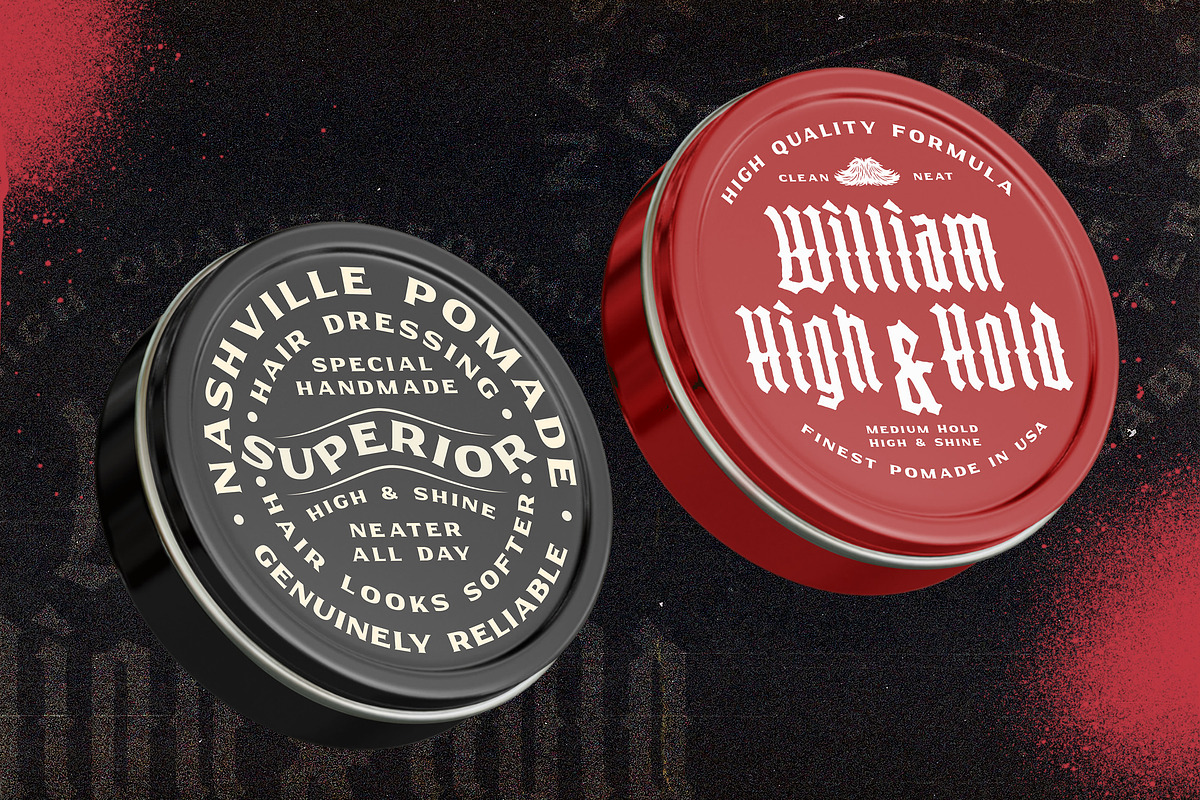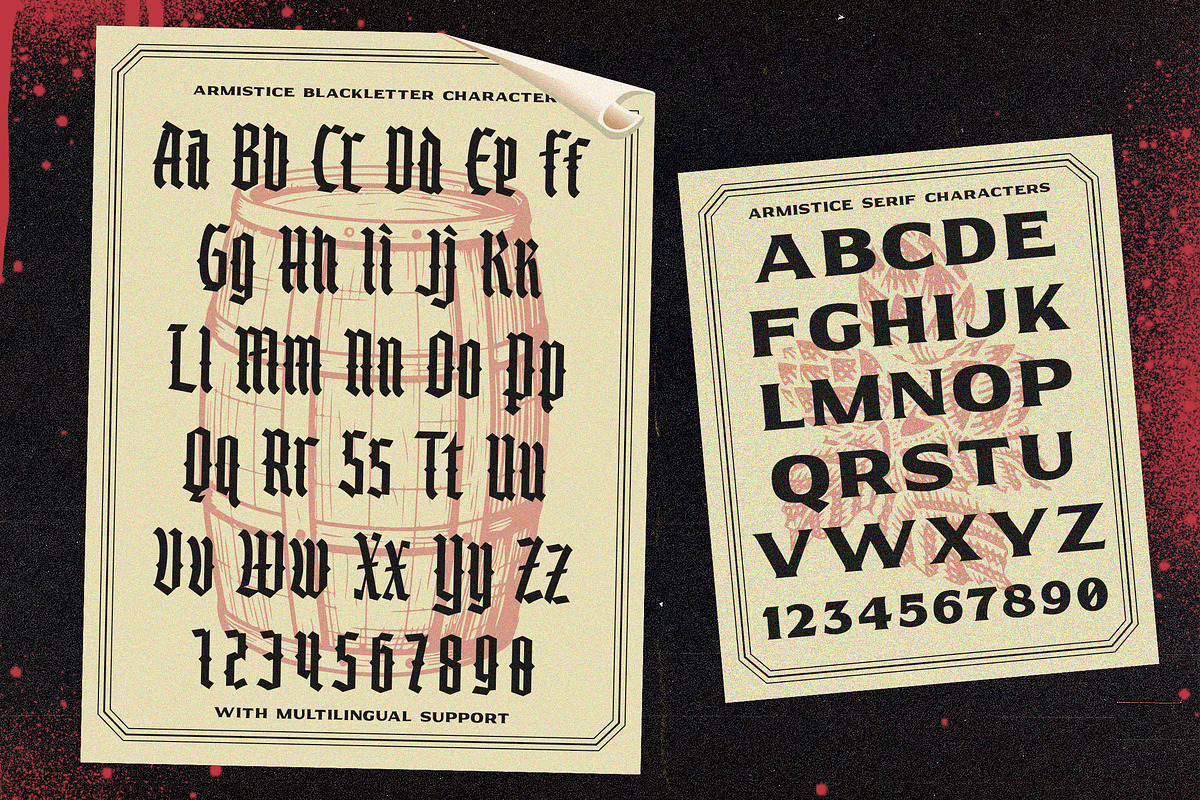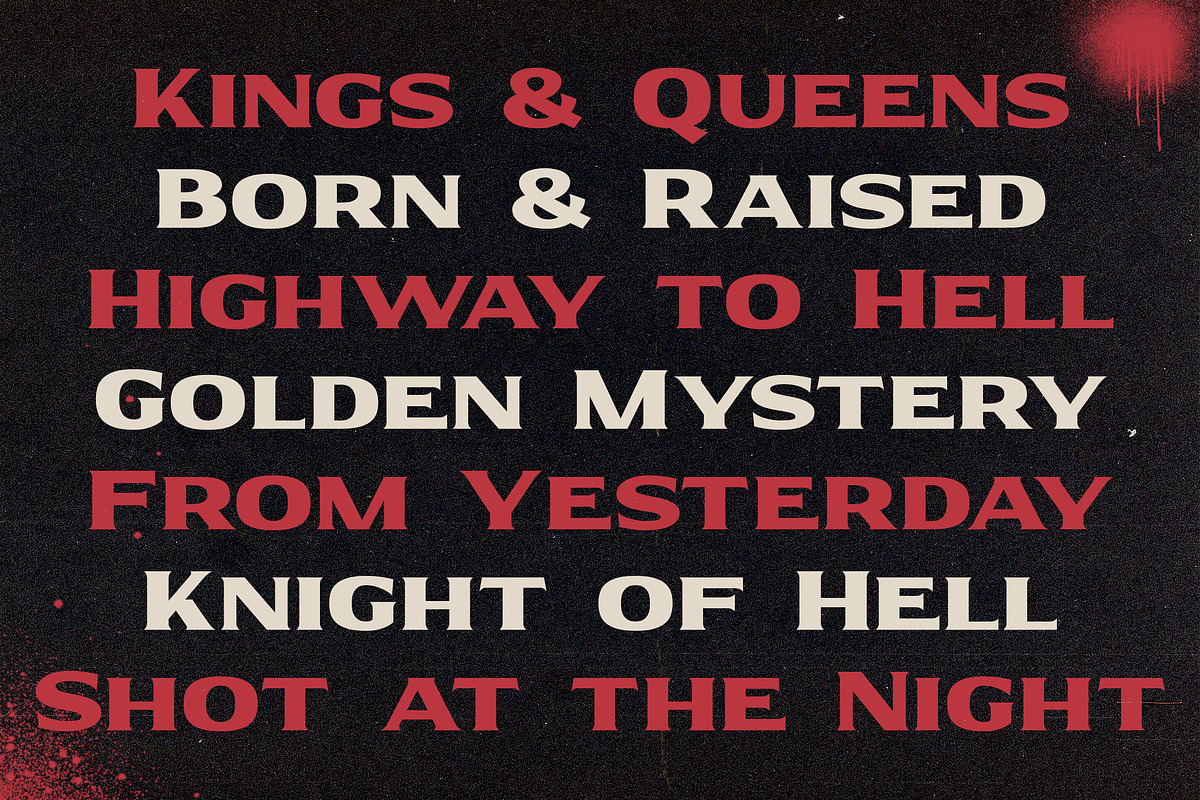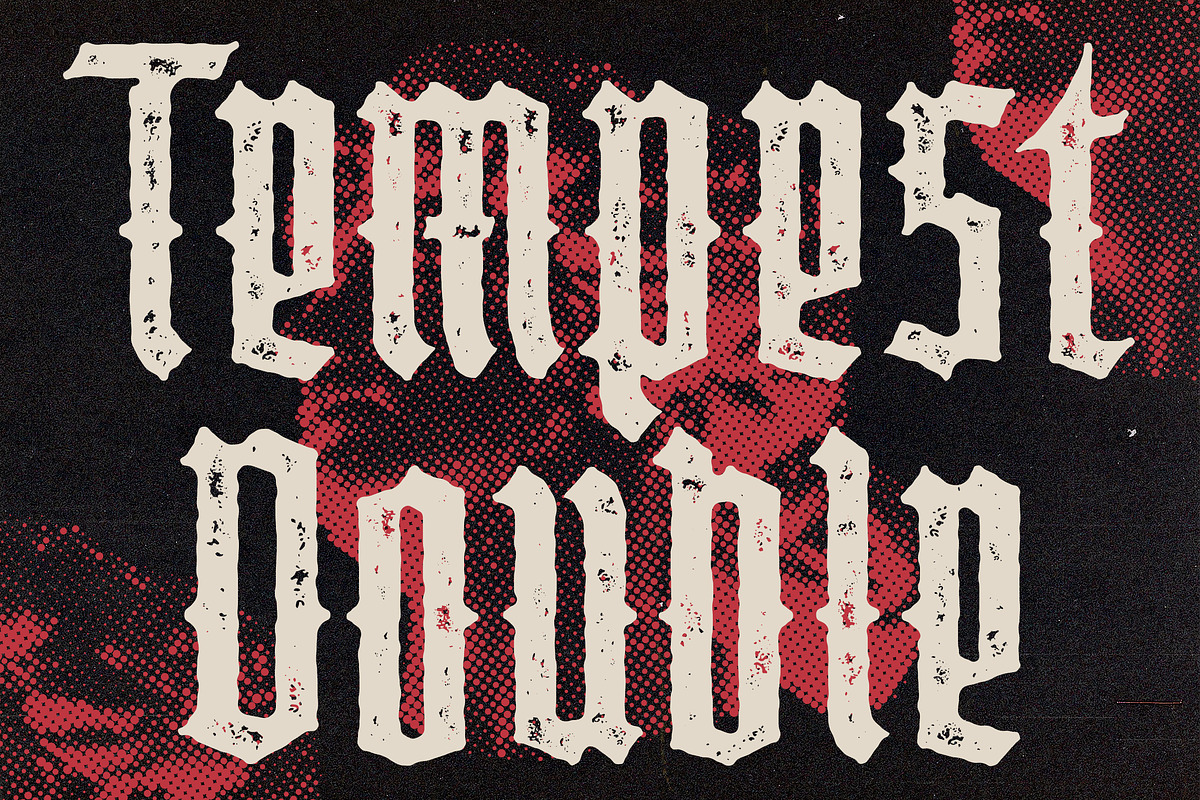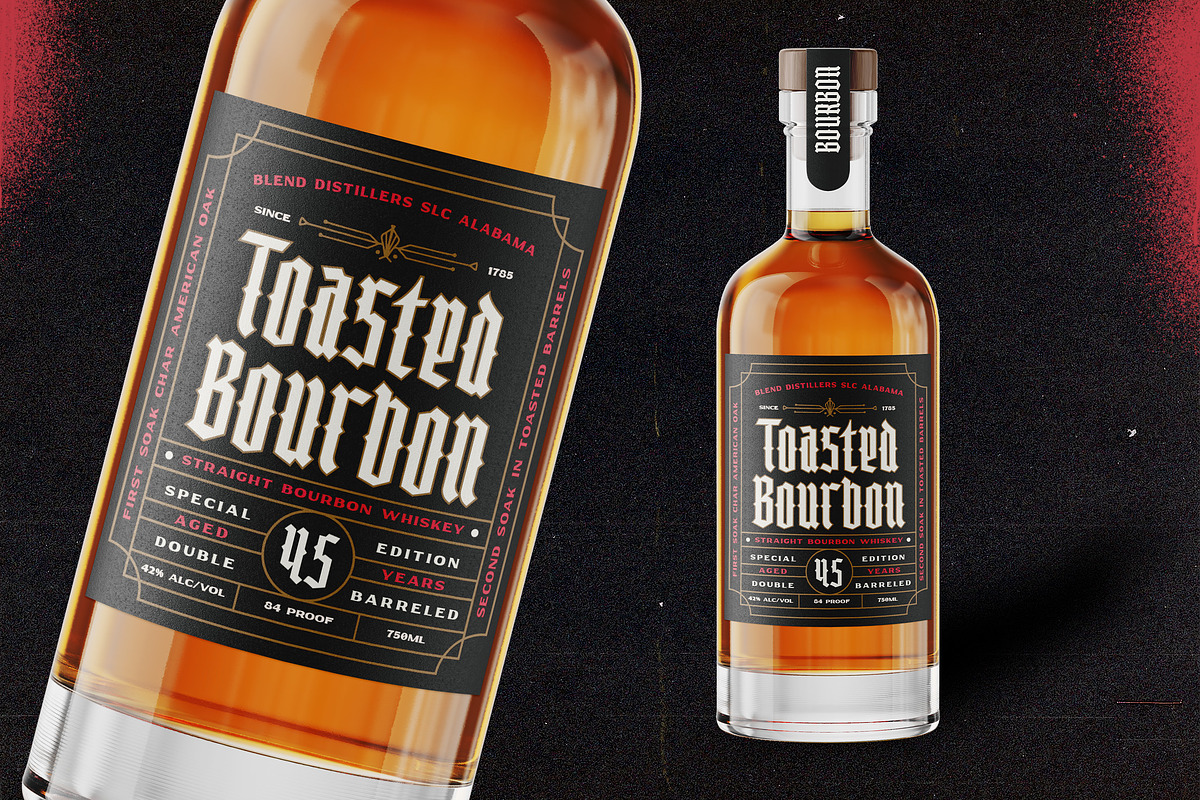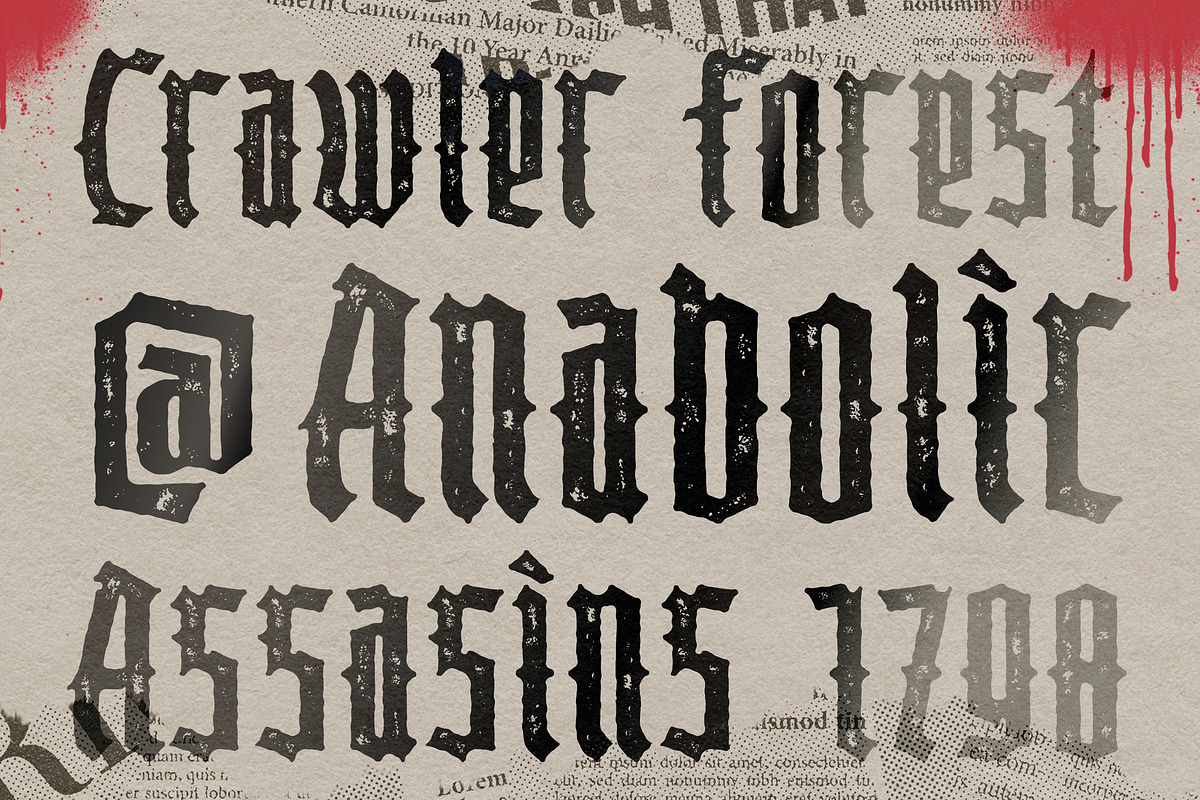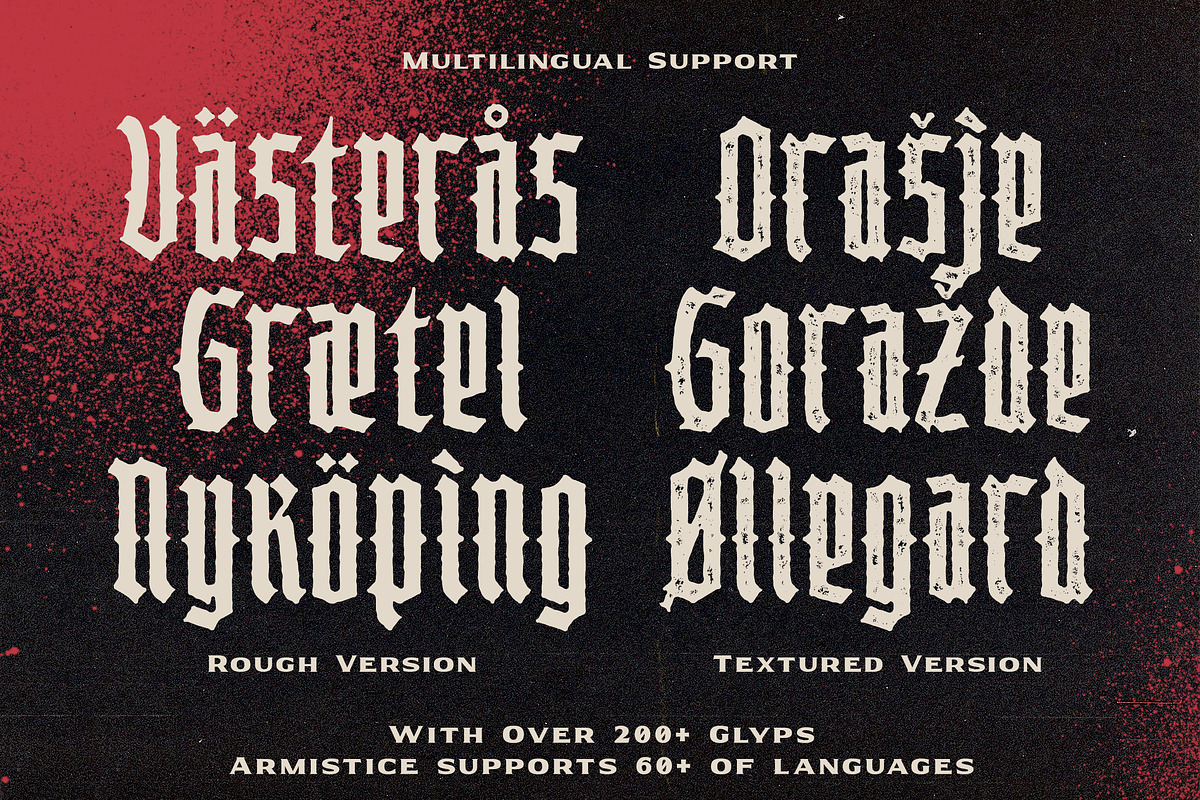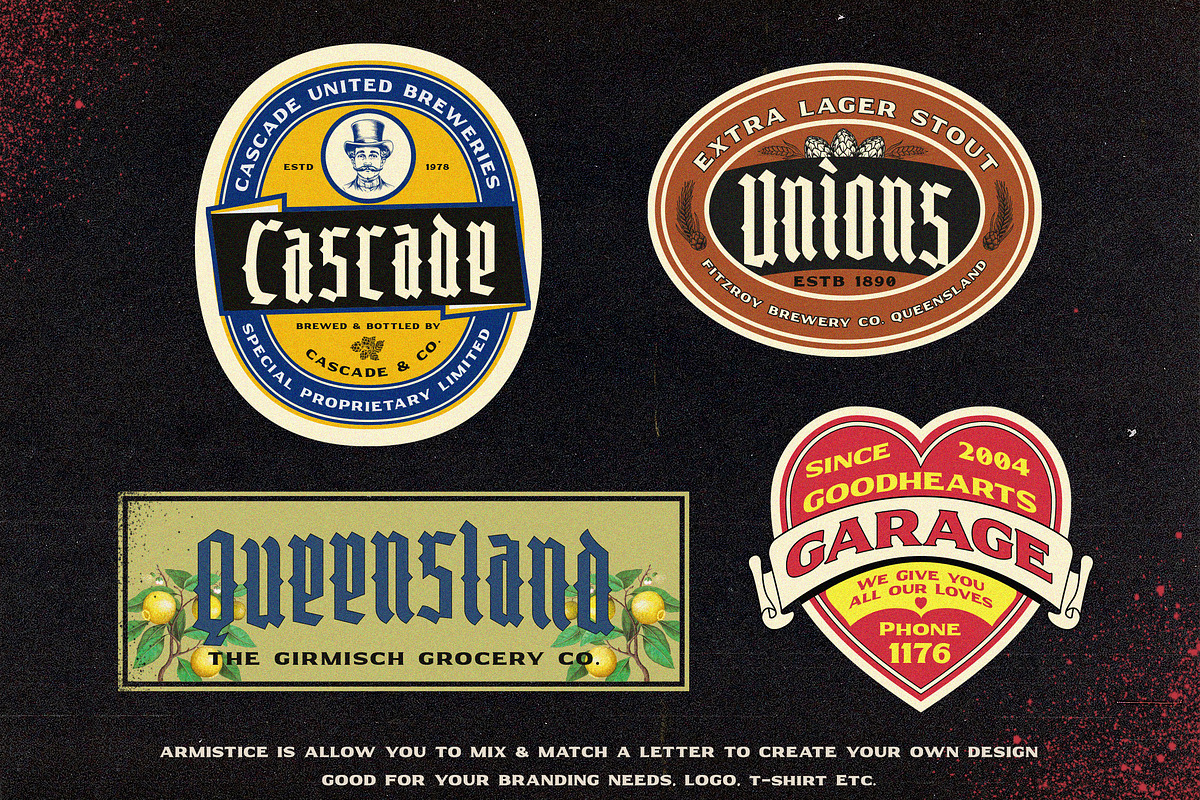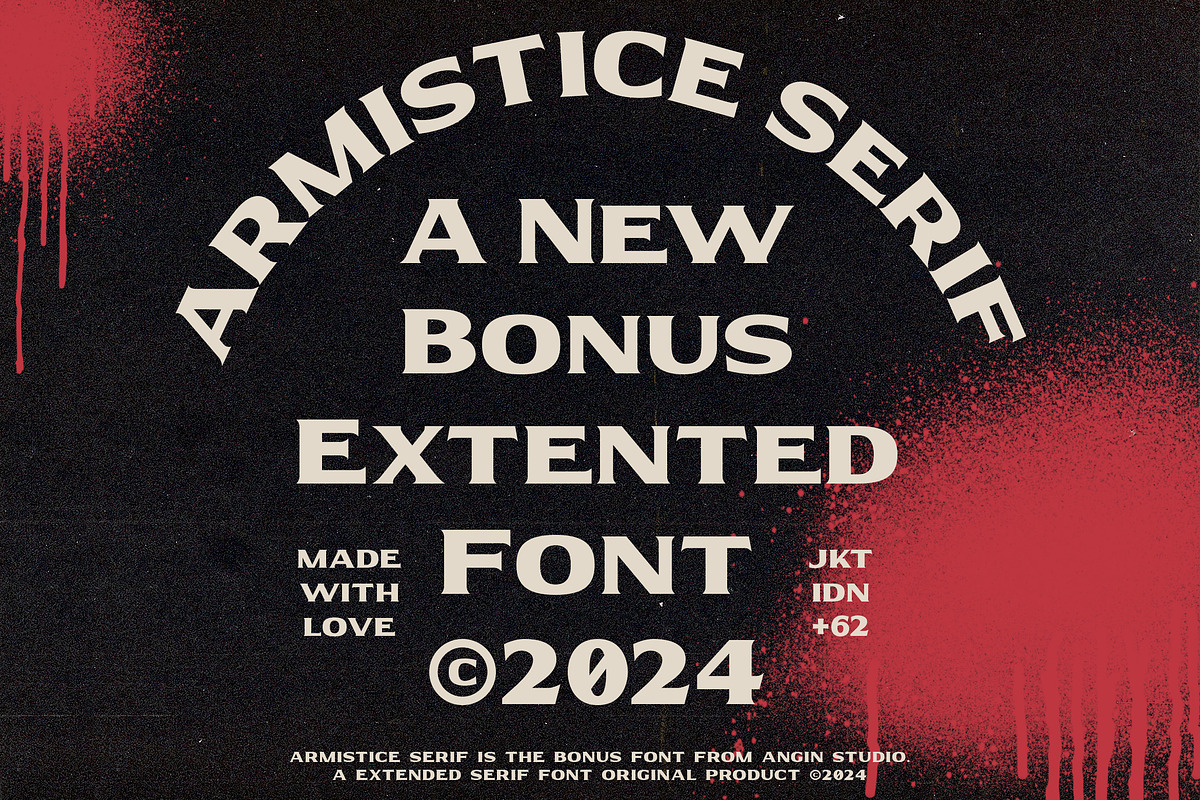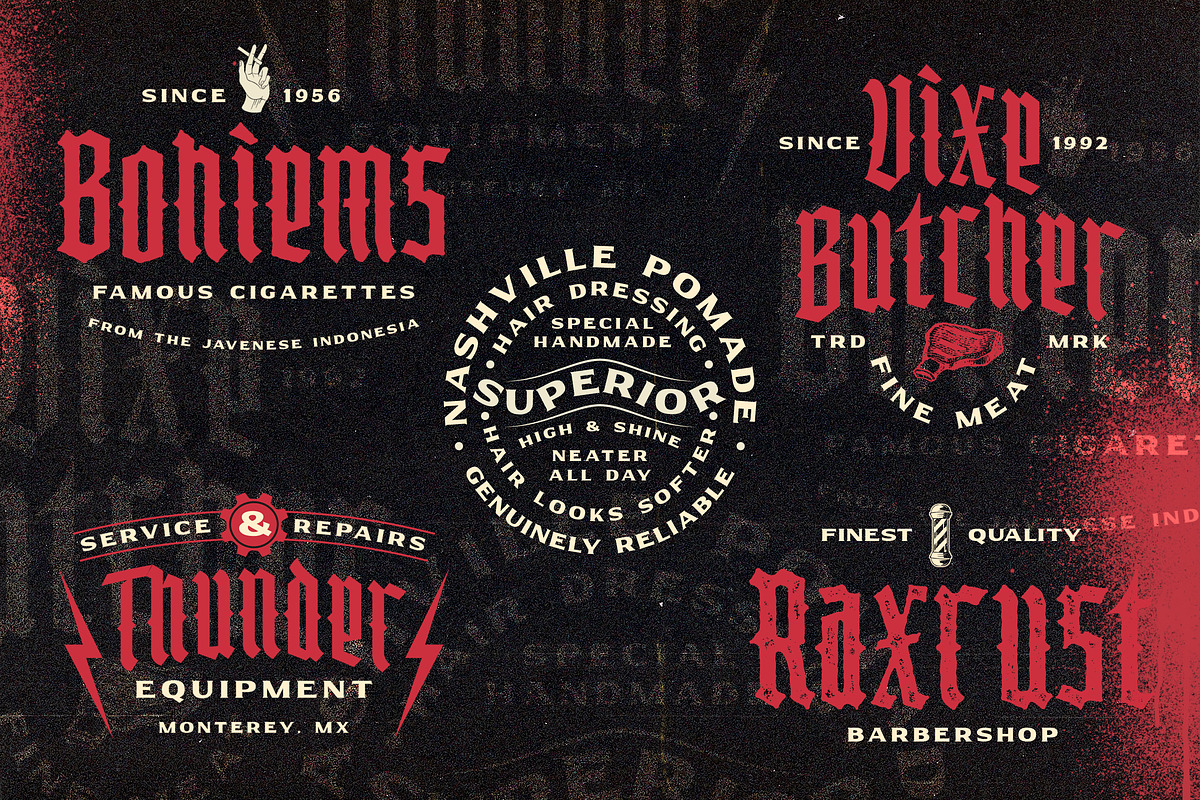
Armistice Condensed Blackletter
Our new condensed blackletter font called Armistice, inspired by medieval manuscripts. This font, made with our love a condensed blackletter, giving you a touch of historical sophistication to your design projects.
This font is an excellent choice for those who want to blend the old-world charm of blackletter with the practicality of modern typography. Bring a piece of history to your designs. Enhance your typography with Armistice Condensed Blackletter.